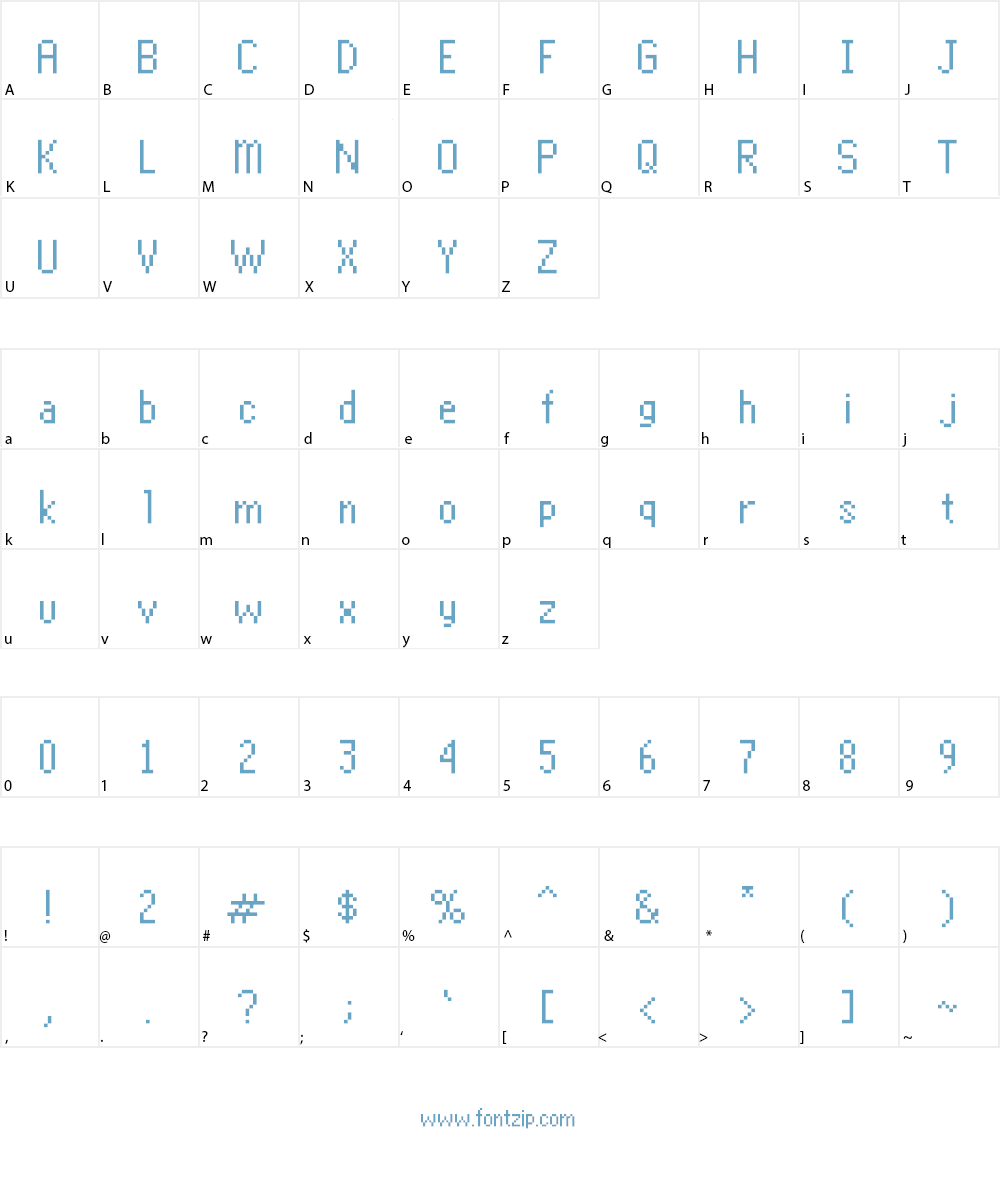
Based on the bitmap font from "The Urbz: Sims in the City" for DS/GBA (the best Sims RPG EVER!) Despite what the readme might say, this is actually NOT the most unnecessarily jampacked pixel font you're ever likely to download ;) It WAS but it isn't anymore.
Changes in Version 1.3:
-Added Hiragana and Bopomofo characters
Characters included:
-Basic Latin (keyboard characters)
-Extended Latin (accented characters & symbols)
-Cyrillic
-Greek/Coptic
-Bopomofo
-Hiragana
-Katakana